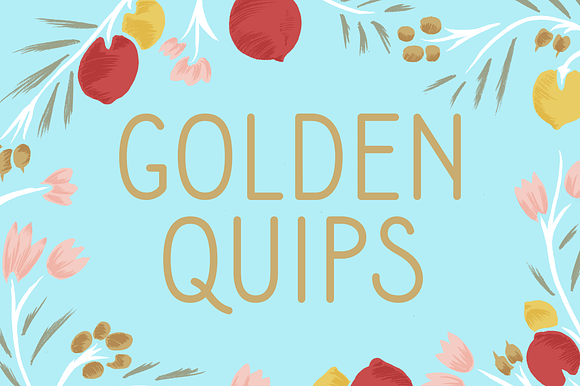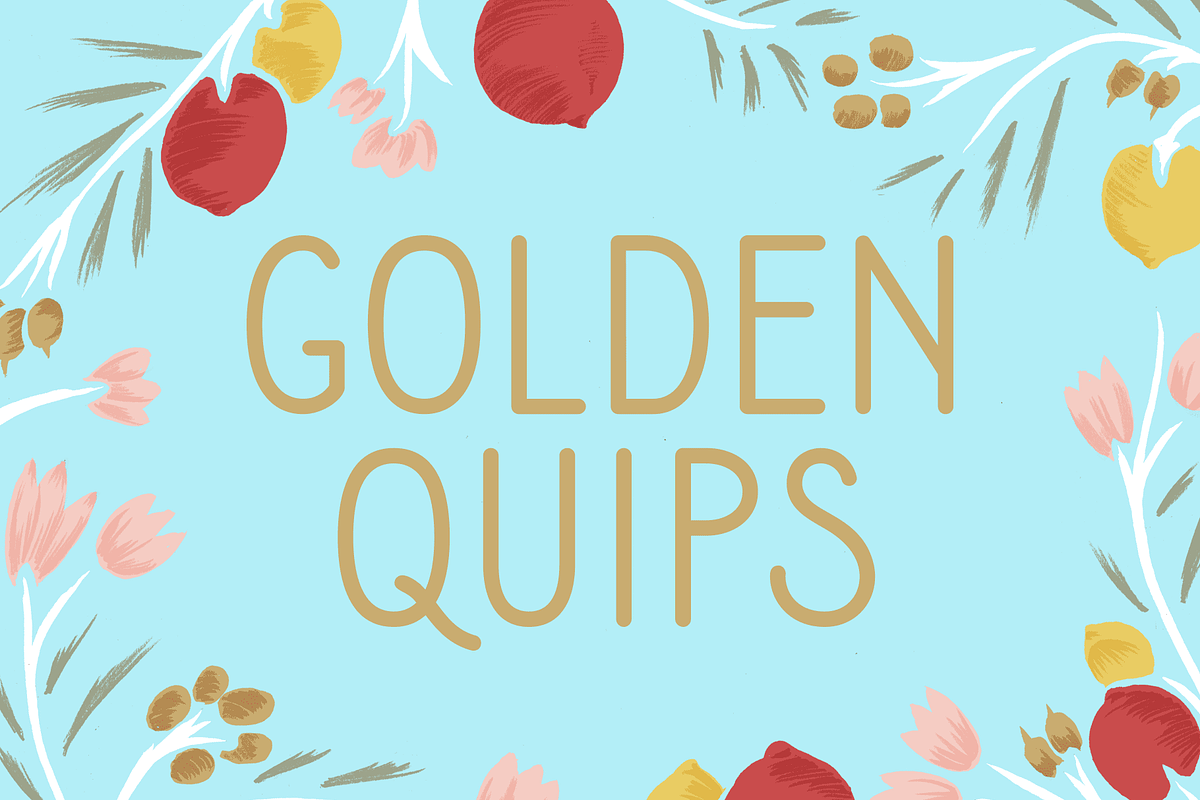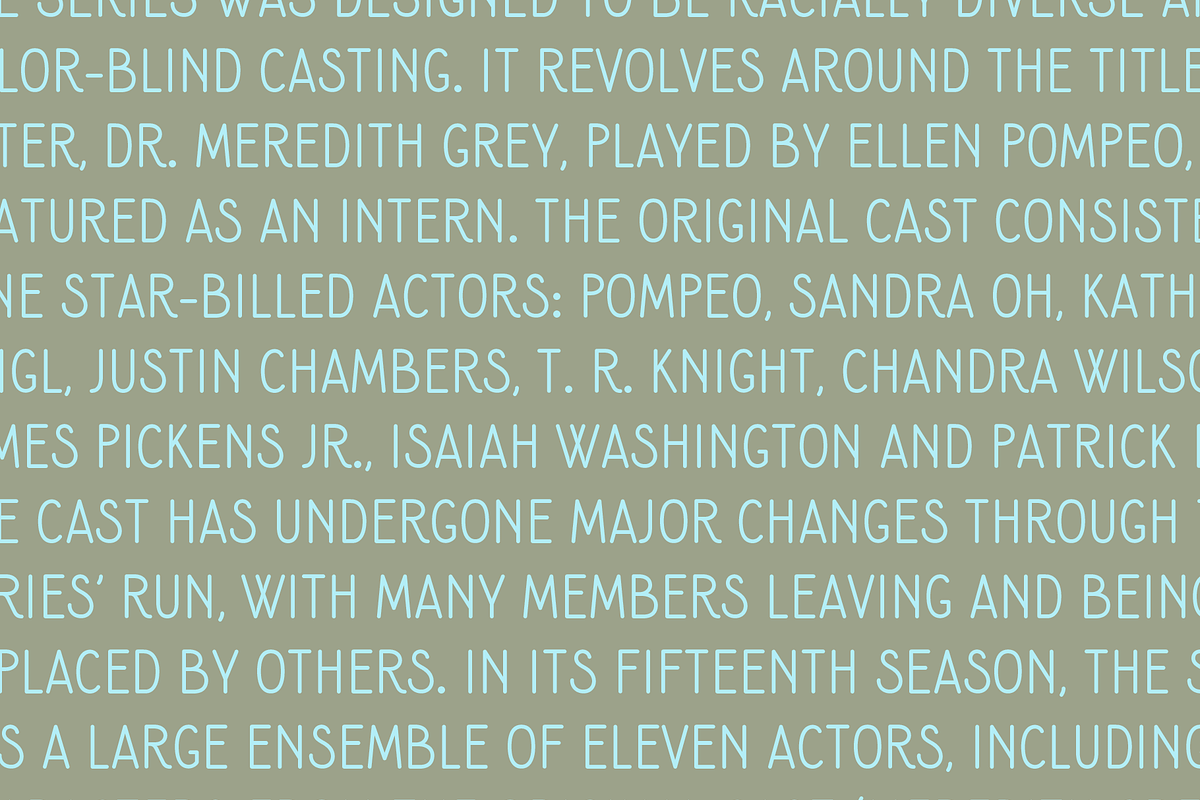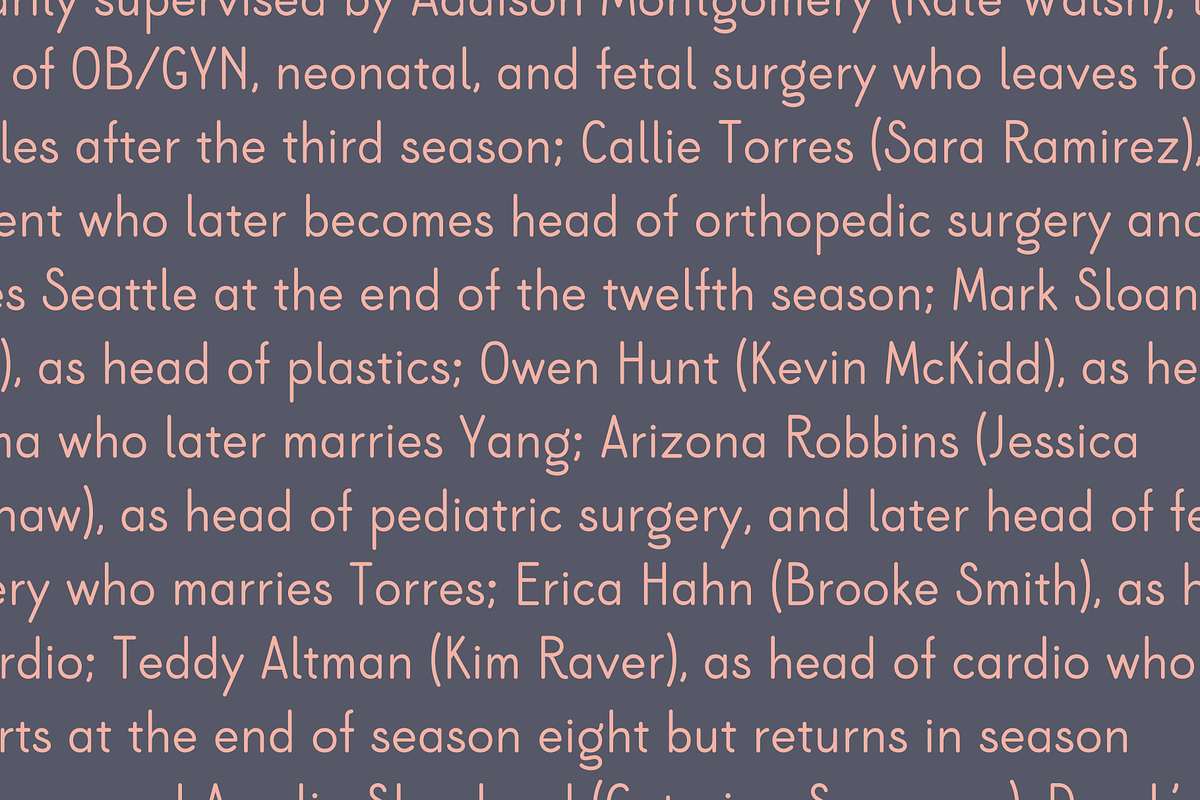
Golden Quips
Golden Quips is a quaint and simplified rounded sans serif font designed to be used alongside other, more expressive type. Use it for the smaller bits of information rather than the biggest names and headlines. The rounded ends make it a nice pair with my other typeface, Golden Grace.
Why Golden Quips is worth a look
Golden Quips by Golden Doodle Fonts fits naturally into Branding, posters, packaging, typography.